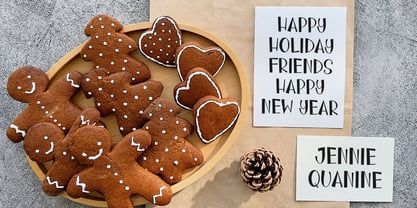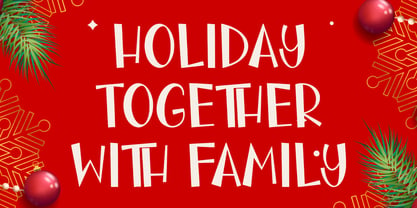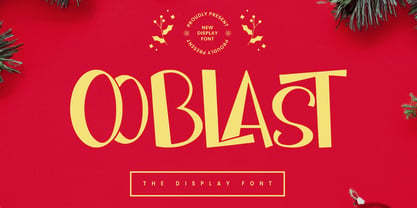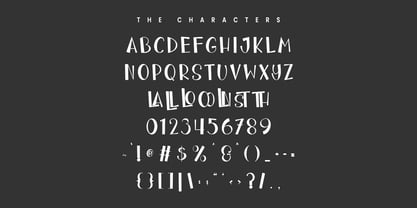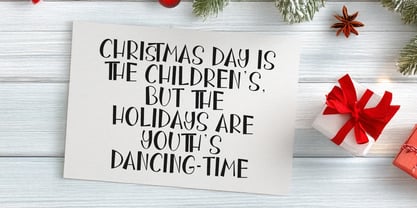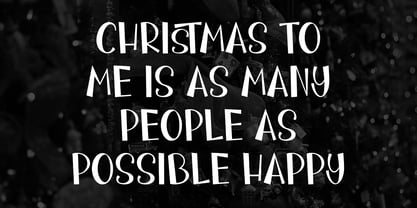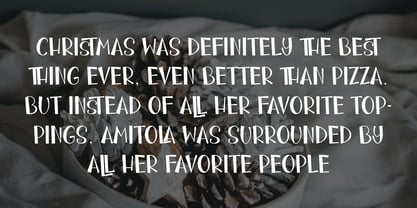
MC Ooblast
por Maulana Creative
La familia tipográfica MC Ooblast fue diseñada por Gilang Maulana y publicada por Maulana Creative. MC Ooblast contiene 1 estilos. Más información sobre esta familia
Ooblast is a display modern font. With bold tall and sharp stroke, fun character with a bit of ligatures. To give you an extra creative work. Ooblast font support multilingual more than 100+ language. This font is good for logo design, Social media, Movie Titles, Books Titles, a short text even a long text letter and good for your secondary text font with sans or serif. Make a stunning work with Ooblast font.
Diseñadores: Gilang Maulana
Fundición: Maulana Creative